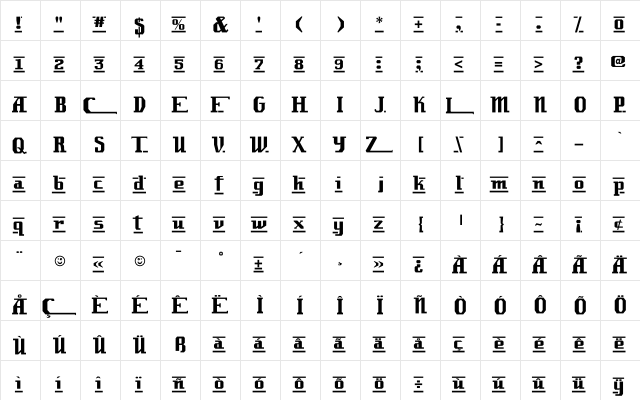
Lambrettista Regular
Design Context for Lambrettista Typeface
Lambrettista is a composed and adaptable typeface that performs quietly and consistently across a wide range of design contexts.